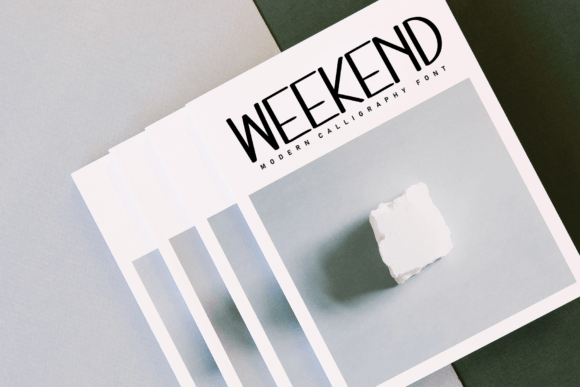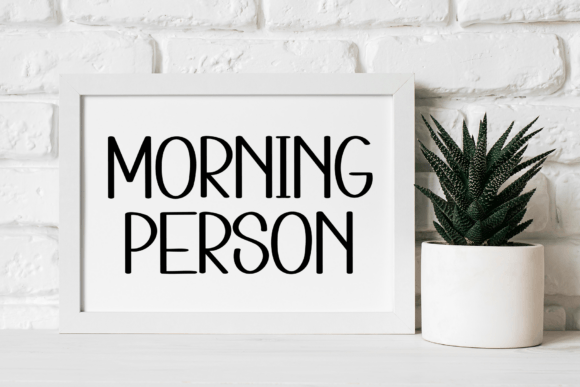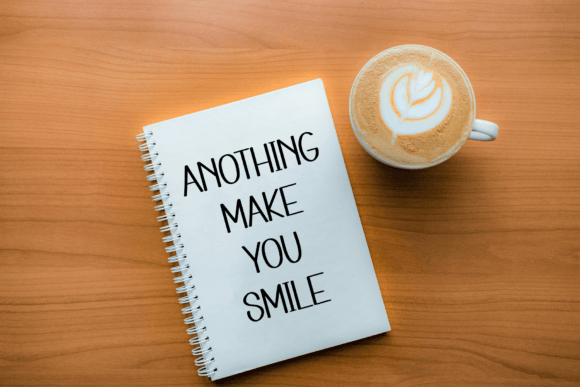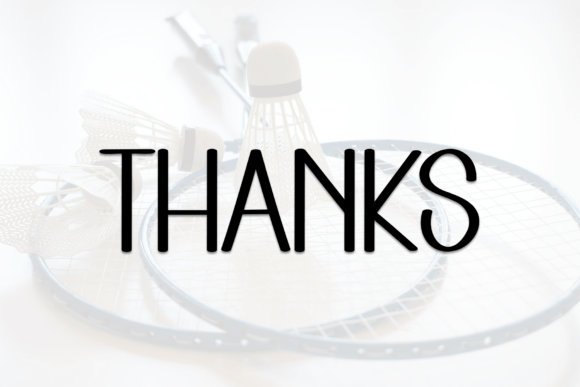
Introducing Best Friend Font: The Perfect Blend of Relaxed and Luxurious
Are you tired of using the same old fonts for your designs? Look no further than Best Friend Font, a beautiful handwritten font that looks like it was drawn with a marker. With its relaxed and sporty feel, Best Friend Font is perfect for a wide range of design projects, from branding and logos to wedding supplies and greeting cards.
The Characteristics of Best Friend Font
Best Friend Font is a unique and stylish font that is sure to elevate your designs. Its handwritten style gives it a personal and approachable feel, while its marker-like quality adds a touch of playfulness. The font has a relaxed and sporty vibe, making it perfect for designs that need to convey a sense of casual sophistication.
One of the key benefits of Best Friend Font is its versatility. It can be used for a wide range of design projects, including:
- Branding and logos: Create a unique and memorable brand identity with Best Friend Font.
- Wedding supplies: Add a touch of elegance and whimsy to your wedding designs, from invitations to decorations.
- Greeting cards: Create beautiful and personalized greeting cards for any occasion.
- Fashion and lookbooks: Use Best Friend Font to add a touch of style and sophistication to your fashion designs.
- Marketing promotions: Stand out from the crowd with eye-catching marketing materials that feature Best Friend Font.
Why Choose Best Friend Font?
So why choose Best Friend Font over other fonts? Here are just a few reasons:
- Unique and stylish: Best Friend Font is a one-of-a-kind font that will add a touch of personality to your designs.
- Versatile: Use Best Friend Font for a wide range of design projects, from branding to wedding supplies.
- Elegant and casual: Best Friend Font strikes the perfect balance between elegance and casualness, making it perfect for designs that need to convey a sense of sophistication and approachability.
- Easy to read: Despite its handwritten style, Best Friend Font is easy to read and understand, making it perfect for designs that need to communicate a message.
Tips for Using Best Friend Font
Here are a few tips for getting the most out of Best Friend Font:
- Use it sparingly: Best Friend Font is a statement font, so use it sparingly to add emphasis and personality to your designs.
- Pair it with other fonts: Experiment with pairing Best Friend Font with other fonts to create a unique and interesting design.
- Play with sizes and colors: Don’t be afraid to experiment with different sizes and colors to add visual interest to your designs.
Best Friend Font is a beautiful and versatile font that is perfect for designers and crafters who want to add a touch of personality and elegance to their designs. With its relaxed and sporty feel, Best Friend Font is suitable for a wide range of design projects, from branding and logos to wedding supplies and greeting cards. Whether you’re looking to create a unique brand identity or add a touch of whimsy to your designs, Best Friend Font is the perfect choice.